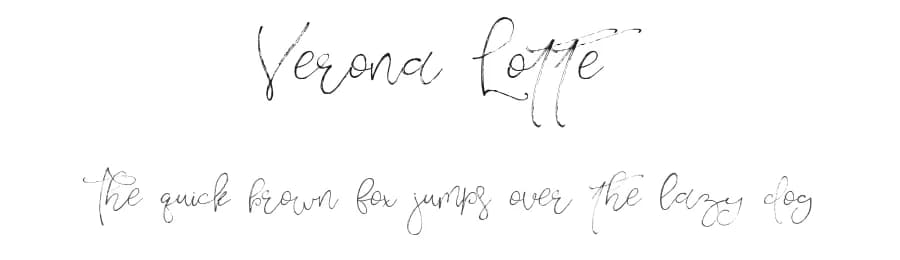
About Verona Lotte Font
Verona lotte is a hand brushed typeface 100% accessible with multilingual support. It's ideal for signature logos, t-shirts, magazines, social media, restaurant menus, greeting cards, invitations, weddings, headers and much more.
| Designer | Yasir Ekinci |
Verona Lotte Font is a script font that shines as a display or heading face. Pair it with a clean sans-serif or serif font for body text β the contrast creates a clear hierarchy while the two styles stay balanced and easy to read.
Verona Lotte Font
by Yasir Ekinci